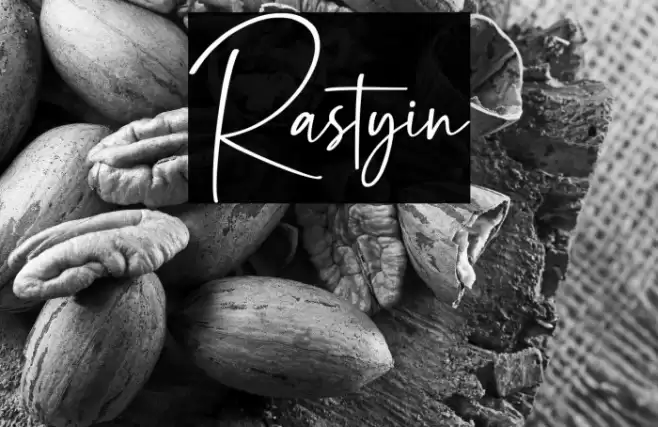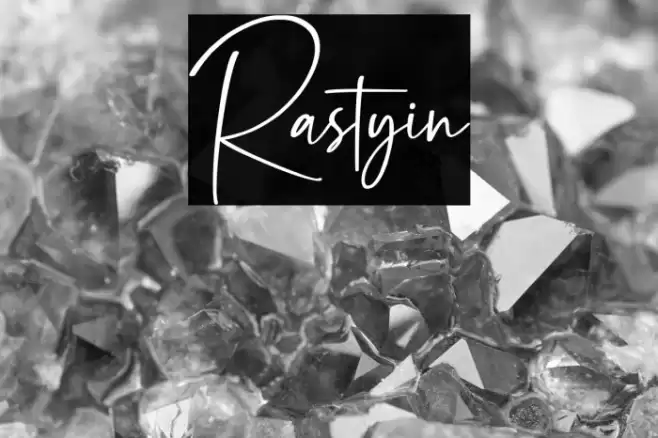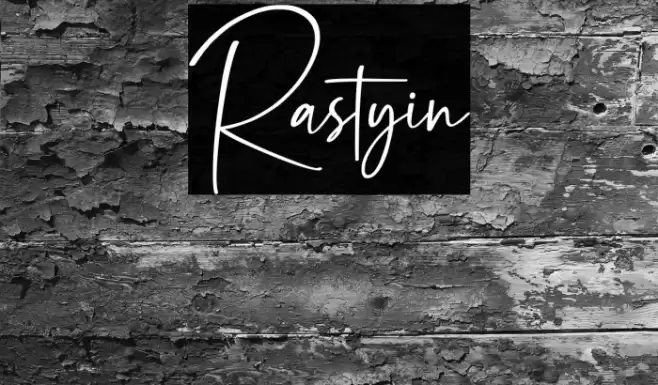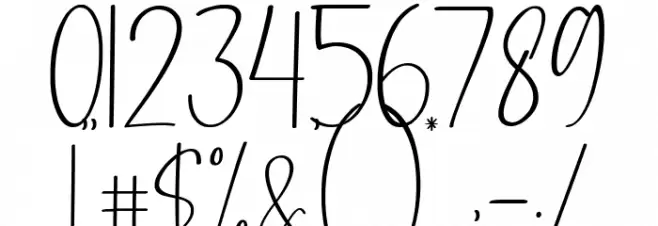
Rastyin Font
Rastyin Description
This font features a playful and elegant handwritten style, characterized by its fluid and dynamic strokes. The uppercase letters are tall and slender, with a slight slant that adds a sense of movement. The lowercase letters maintain a consistent flow, enhancing readability while retaining a casual charm. Numbers are designed with a similar flair, ensuring they complement the overall aesthetic. Special characters are thoughtfully integrated, maintaining the font's cohesive look. This font is perfect for projects that require a personal touch, such as invitations, greeting cards, and creative branding.
A playful and elegant handwritten font with fluid, dynamic strokes from Uncategorized fonts.
- Proposed Projects: Ideal for invitations, greeting cards, creative branding, and personal projects.
- Use Case: Headlines, Logos, Invitations